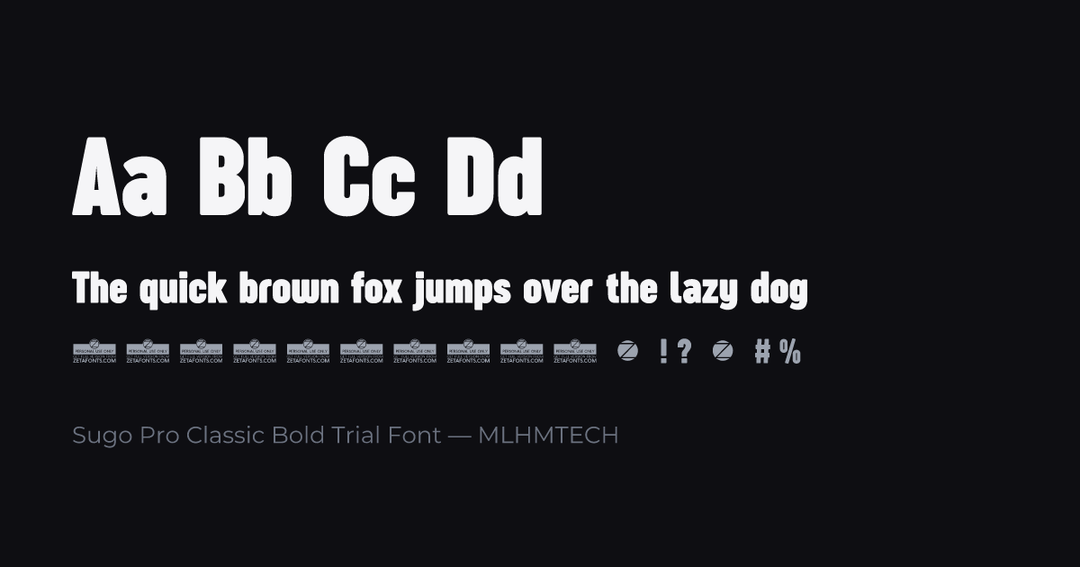
Sugo Pro Classic Bold Trial Font
Sugo Pro Classic Bold is a strong, geometric sans-serif font ideal for impactful headlines and branding. This trial version lets you test its versatility in your projects.
Sugo Pro Classic Bold is a high-contrast, geometric sans-serif that commands attention. Its clean lines and sturdy structure make it perfect for headlines, posters, logos, and video titles. The font's bold weight ensures readability even at small sizes, while its classic proportions give a timeless feel.
Whether you're working on a cinematic title sequence, a bold social media graphic, or a brand identity, Sugo Pro Classic Bold adds a professional, modern touch.